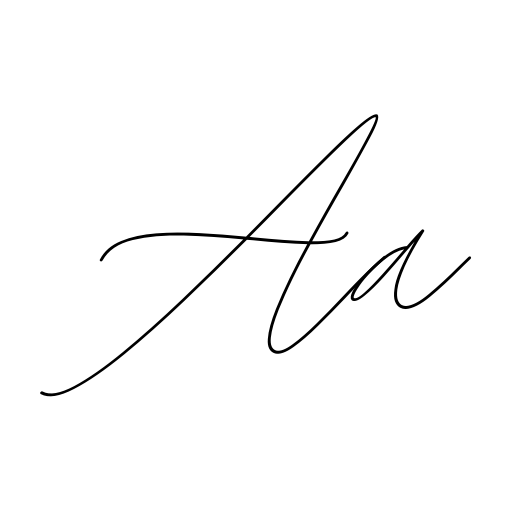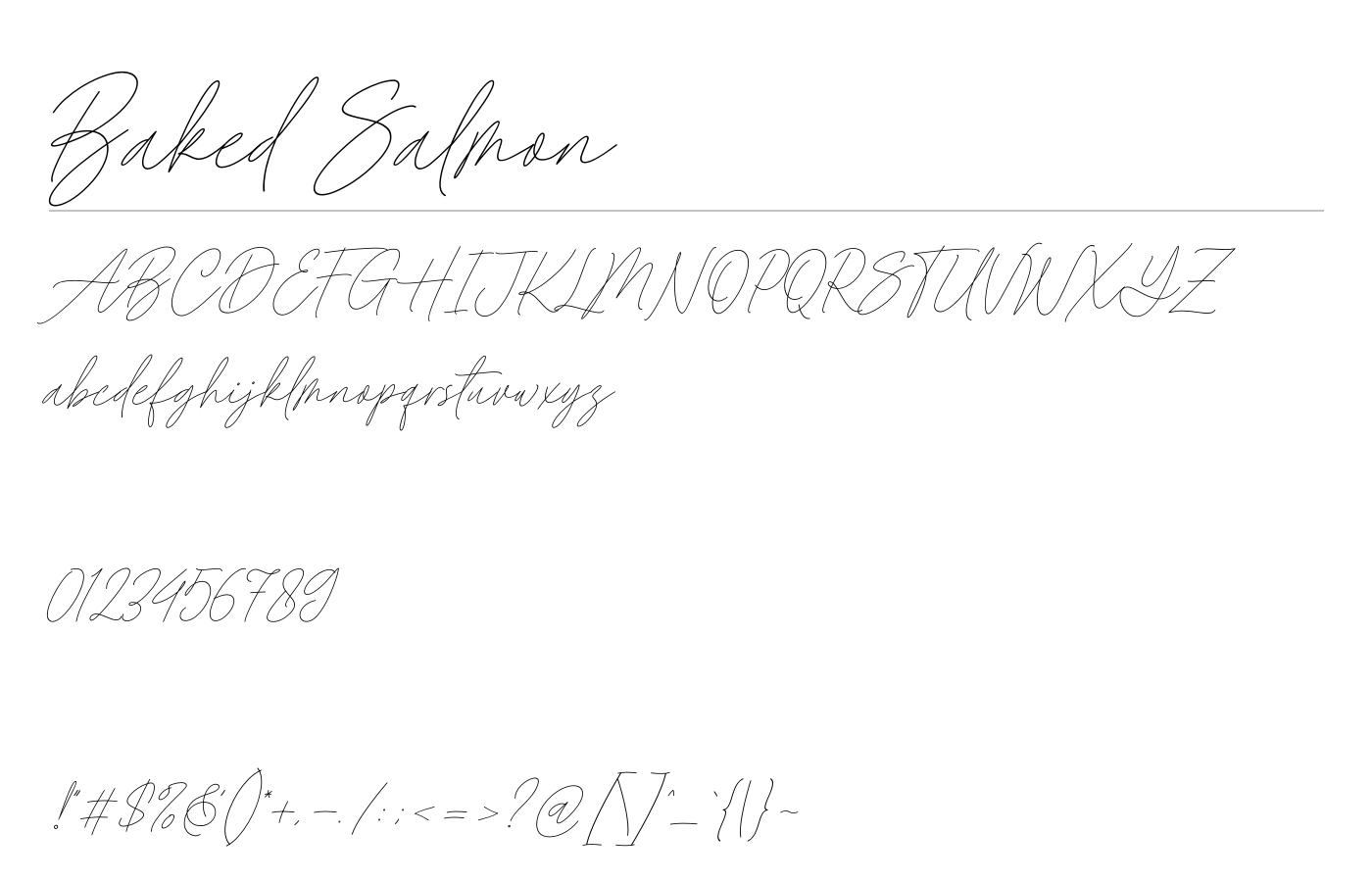
Baked Salmon is a delicate and elegant handwritten script font characterized by its thin, flowing lines and natural, cursive style. Its light weight and airy spacing give it a refined, modern feel, making it perfect for invitations, branding, and projects that require a personal, sophisticated touch. This font works beautifully in designs aiming for a chic and graceful aesthetic without sacrificing readability.
Baked Salmon Font
About Baked Salmon Font
| Font family | Baked Salmon Font |
| Designer | Rangga Singgih Subekti |
| Trademark | Subectype |